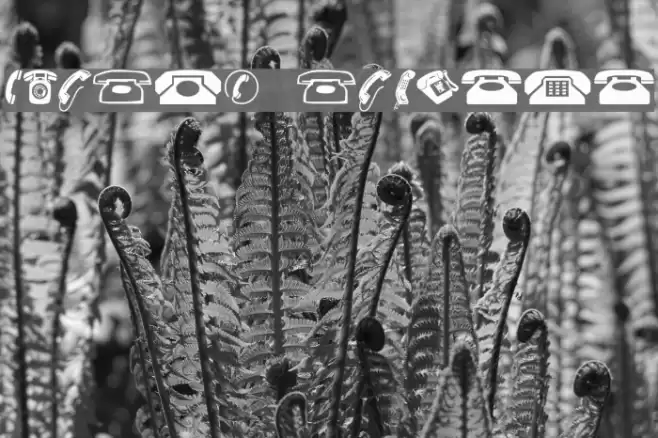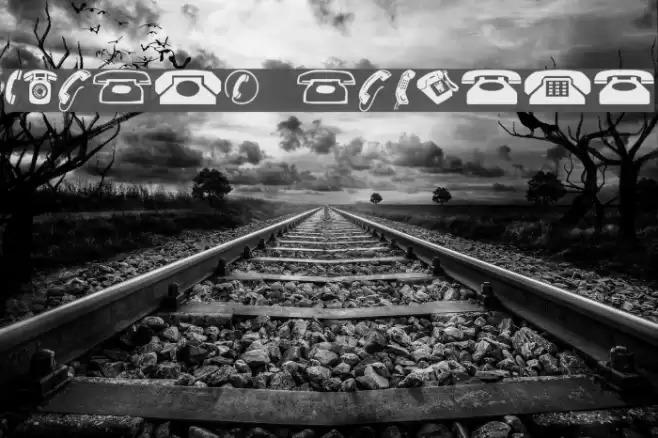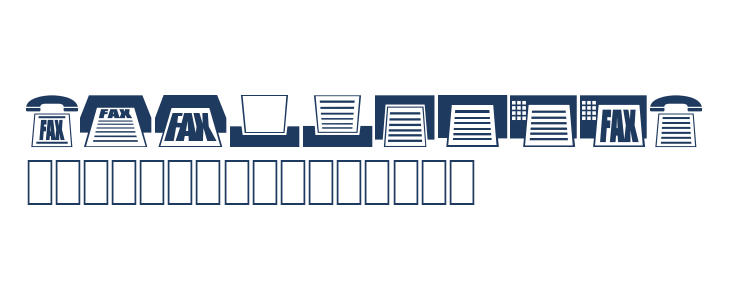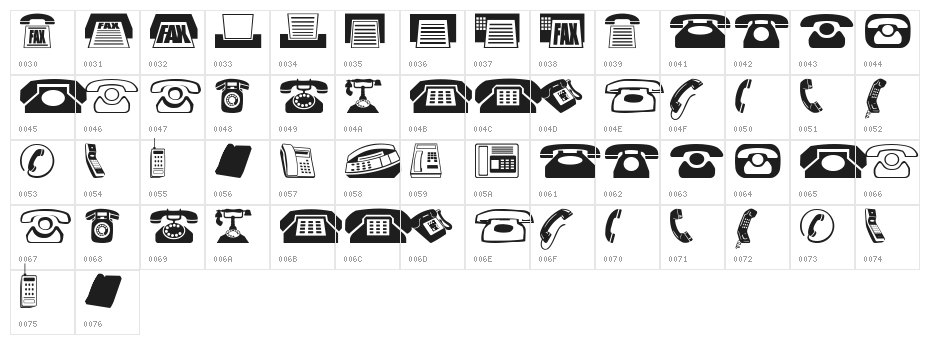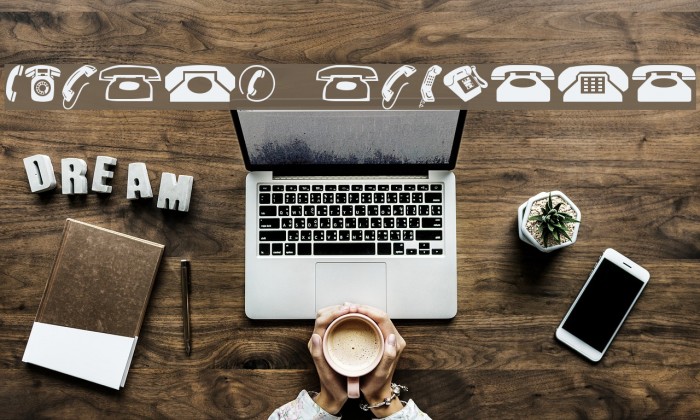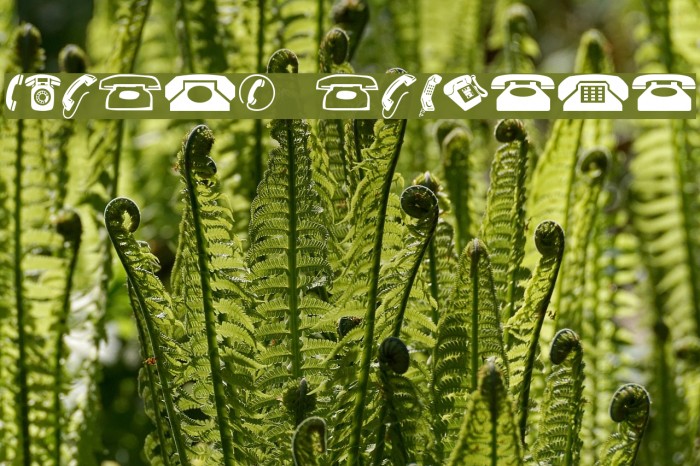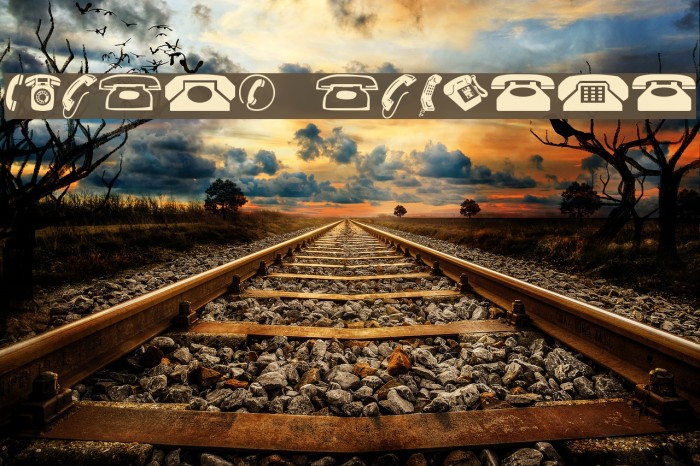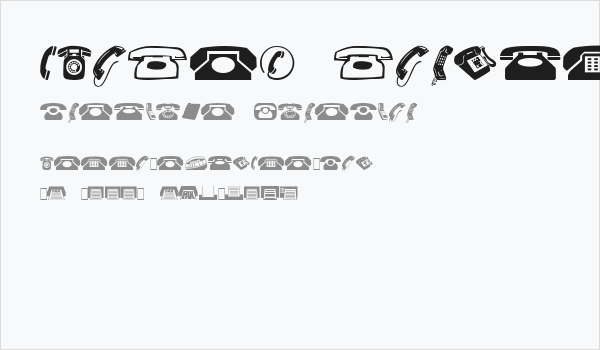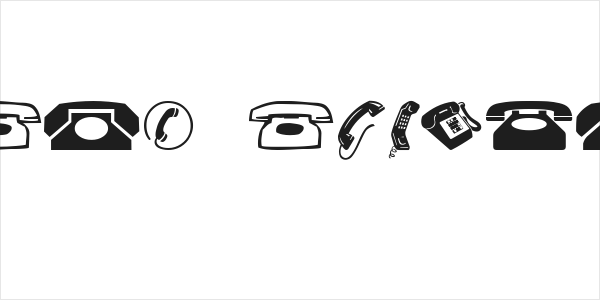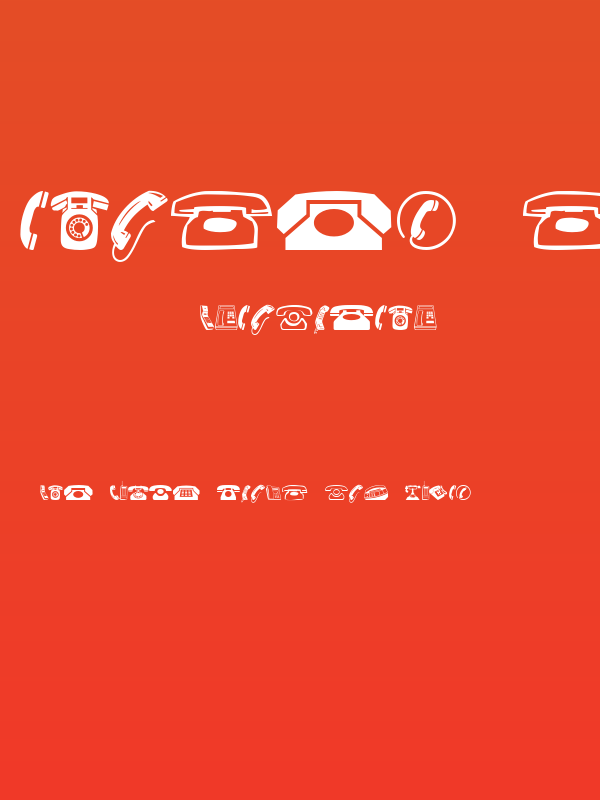
This is not a traditional font but rather a collection of telephone-themed icons. Each character is represented by a different style of telephone or related communication device, ranging from classic rotary phones to modern mobile phones and fax machines. The icons are bold and clear, making them suitable for visual communication projects where a telephone motif is desired. The design is consistent across the set, with a focus on recognizable shapes and forms that convey the concept of telecommunication.
A collection of telephone-themed icons representing various communication devices from Dingbats fonts.
- Proposed Projects: Ideal for creating themed graphics for telecommunications companies, educational materials on communication history, or decorative elements in design projects focused on technology.
- Use Case: Logos, Decorative elements, Themed graphics